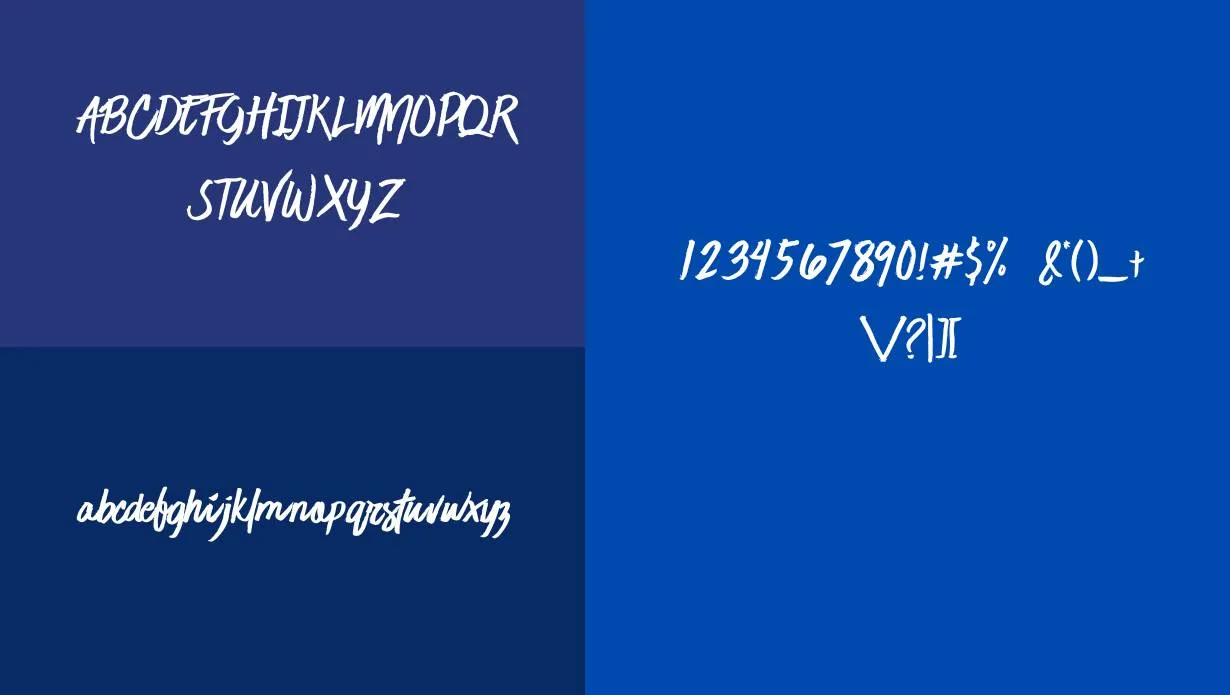
The Blues Font brings a musical touch to your writing, infusing it with rhythm and style. With its unique and artistic flair, this font will make your text truly stand out.
If you want your writing to have a cool and creative vibe, Blues Font is the choice to make. It turns your words into a visual experience with a touch of musicality.
| Name | Blues Font |
| Designer | Carine de Wandeleer |